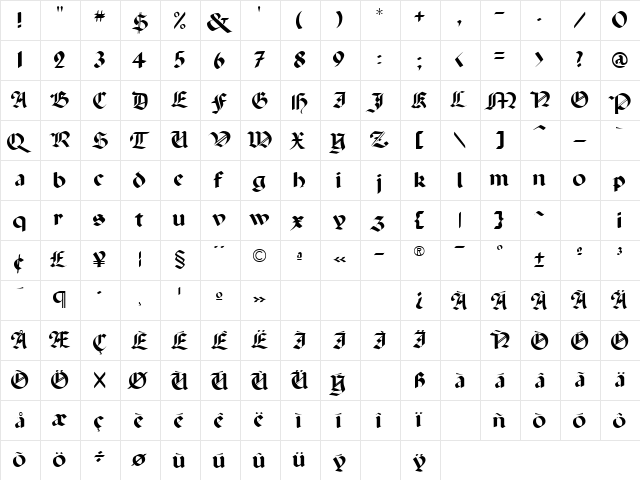
Opine Normal
Design Context for Opine Typeface
Opine is a composed and adaptable typeface that performs quietly and consistently across a wide range of design contexts.